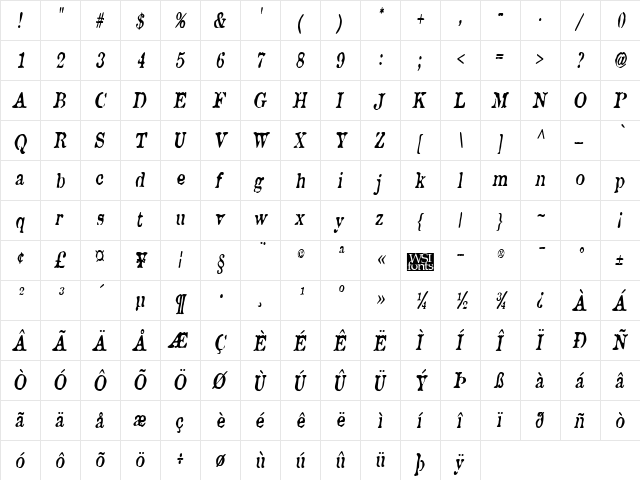
BrunineCnd Italic
Design Context for BrunineCnd Typeface
BrunineCnd is a composed and adaptable typeface that performs quietly and consistently across a wide range of design contexts. Its italic angle brings a sense of urgency and motion to the letterforms.
Pro Tip: Use BrunineCnd for emphasis, pull quotes, and subheadings where its slanted energy can add rhythm to the layout.